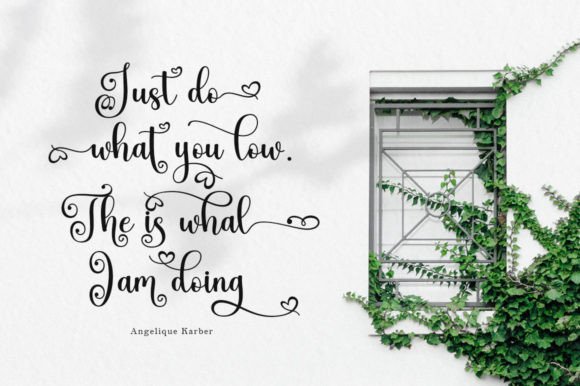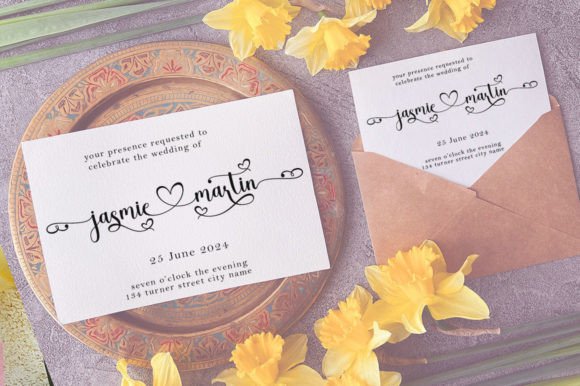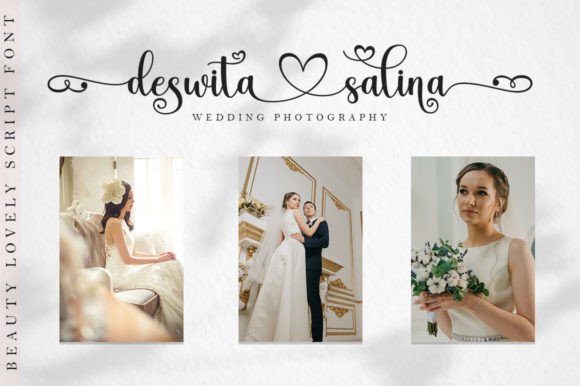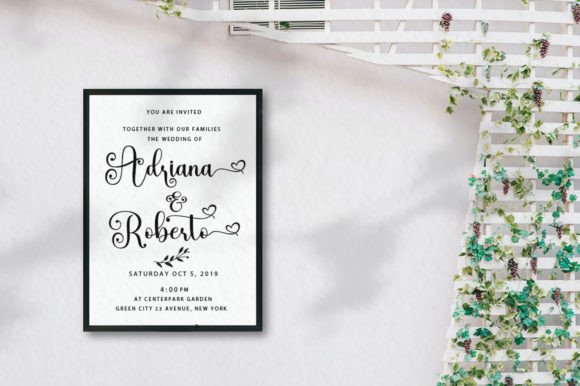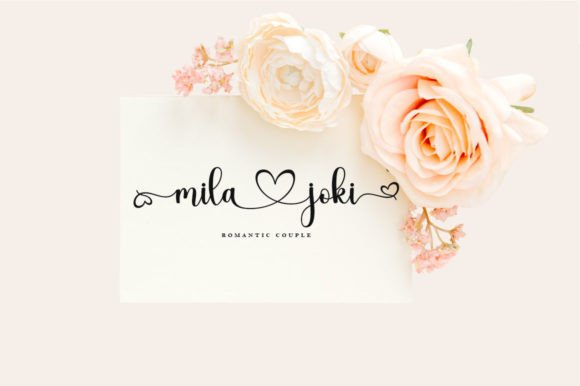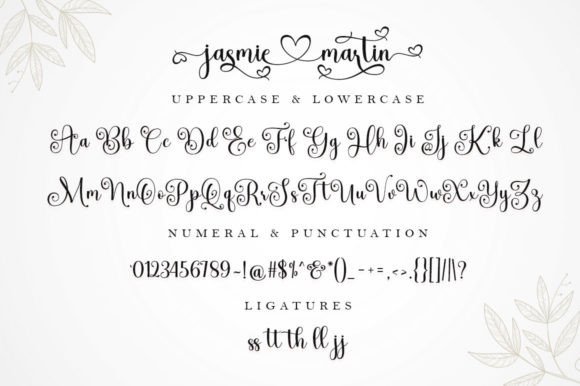
Introduction to Jasmie Martin Font
As a designer, there’s nothing quite like the thrill of bringing a creative project to life. You spend hours pouring over every detail, from the color palette to the typography, until it’s just right. But what happens when you need that special something to elevate your design from good to great? That’s where the Jasmie Martin Font comes in.
This elegant and flowing handwritten font is more than just a pretty face – it’s a game-changer for designers who want to add a touch of sophistication to their work. With its varied baselines, smooth lines, and beautiful glyphs, the Jasmie Martin Font is the perfect addition to any design resource. Whether you’re working on a project with a transparent background or need a high-quality font for a print piece, this font is sure to impress.
Key Features of Jasmie Martin Font
- High-quality font with a unique, creative style, perfect for various design projects.
- Comes with a transparent background, allowing for easy customization and integration into your design.
- Designed to work at high resolutions, up to 300 DPI, making it suitable for print and digital projects.
- Part of a larger collection of design resources, providing endless possibilities for creative projects.
Honest Review: Jasmie Martin Font
As a designer, I’m always on the lookout for high-quality fonts to elevate my creative projects. Recently, I stumbled upon the Jasmie Martin Font, and I was excited to give it a try.
First impressions are everything, and the Jasmie Martin Font definitely makes a statement. The font is clean, modern, and versatile, making it perfect for a variety of design applications. The transparent background is a nice touch, allowing for easy layering and composition.
- Transparent background for easy layering and composition
- The font may not be suitable for all design styles or applications
- Limited customization options
Overall, I’m impressed with the Jasmie Martin Font. While it may have some limitations, its high quality and versatility make it a valuable addition to any designer’s toolkit. If you’re looking for a modern, clean font for your creative project, I’d definitely recommend giving it a try.
Common Use Cases for Jasmie Martin Font
Jasmie Martin Font is perfect for creating invitations, social media graphics, and marketing materials. Use it to add a touch of elegance and sophistication to your designs.
Can I customize the Jasmie Martin Font to suit my design needs?
Yes, the Jasmie Martin Font is a highly customizable font, allowing you to adjust various parameters such as font size, line spacing, and color. Additionally, you can also use the font’s features, such as ligatures and swashes, to add a touch of personality to your design. The font’s transparent background also makes it easy to layer and combine with other design elements in your creative project.